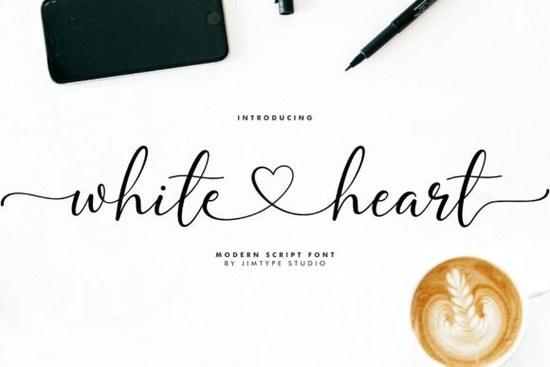
If you're looking for a handwritten script that feels personal, warm, and effortlessly elegant, the White Heart Font might be exactly what your next project needs. Designed with soft curves and natural flow, it’s especially well-suited for wedding stationery, branding for boutique businesses, or even custom gifts that call for a gentle, feminine touch.
What sets White Heart apart is its attention to detail. Along with standard uppercase and lowercase letters, it includes beginning and ending swashes for lowercase characters and special heart-shaped connector swashes that tie words together like real handwriting. This gives your typography an organic, hand-lettered quality without requiring advanced calligraphy skills.
Who is this font best for?
This font works beautifully for:
- Wedding designers creating invitations, place cards, or signage
- Small business owners building logos or packaging with a personal brand voice
- Print-on-demand sellers designing mugs, tote bags, or wall art with romantic or heartfelt messages
- Social media creators who want consistent, stylish captions or quote graphics
- Crafters and hobbyists personalizing journals, greeting cards, or DIY home decor
Because of its delicate baseline and flowing connections, White Heart pairs best with clean, minimal layouts. Avoid overcrowding it shines when given room to breathe.
How does it compare to other script fonts?
If you’ve browsed Creative Fabrica’s script collection, you’ve likely seen options like Disney-inspired playful scripts or bolder choices like Brasky. White Heart sits on the softer end of the spectrum less theatrical than Disney-style fonts, and more intimate than dramatic display scripts.
For similar vibes, you might also enjoy Cursive Delight, which offers graceful loops and smooth transitions, or the versatile Dream Big Bundle if you’re looking for multiple complementary styles in one pack. But if your design calls for subtle romance with just a hint of whimsy, White Heart stands out for its heart-themed connectors a small detail that adds big personality.
Practical tips for using White Heart effectively
To get the most out of this font, keep these pointers in mind:
- Use OpenType features if your software supports them. Many design programs (like Adobe Illustrator or Affinity Designer) will automatically substitute swash characters when you enable contextual alternates.
- Avoid all-caps usage. White Heart is designed as a lowercase-dominant script. Uppercase letters are meant for initials or accents, not full words.
- Pair it with a simple sans-serif. Fonts like Montserrat, Lato, or even system defaults like Helvetica provide clean contrast without competing.
- Test readability at small sizes. While gorgeous in headlines or featured quotes, intricate swashes can blur in tiny text stick to 18pt or larger for printed materials.
When should you choose White Heart over alternatives?
Opt for White Heart when your message carries warmth, intimacy, or celebration think anniversary cards, bridal shower invites, “just because” gift tags, or Instagram quotes about love and self-care. It’s not ideal for corporate reports or high-energy promotions, but it excels wherever emotion and elegance matter more than boldness.
Also note: if you love the style but need more variety, consider pairing it with its own extended family sometimes designers release matching dingbats or alternate weights that expand creative possibilities.
With its charming details and versatile charm, White Heart Font is a reliable choice for creatives who want their words to feel handwritten with heart.